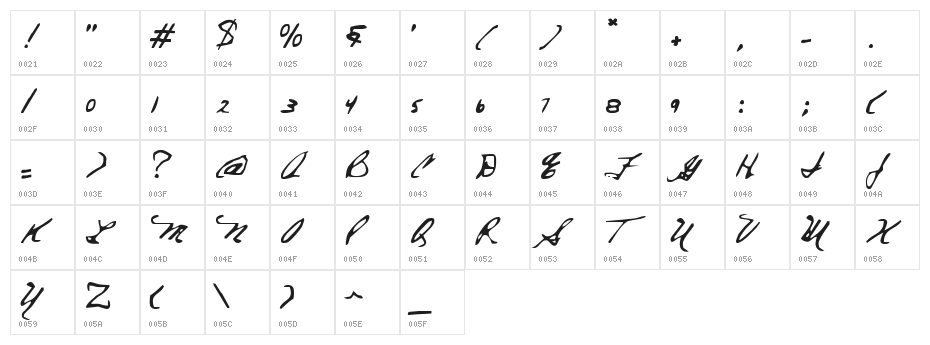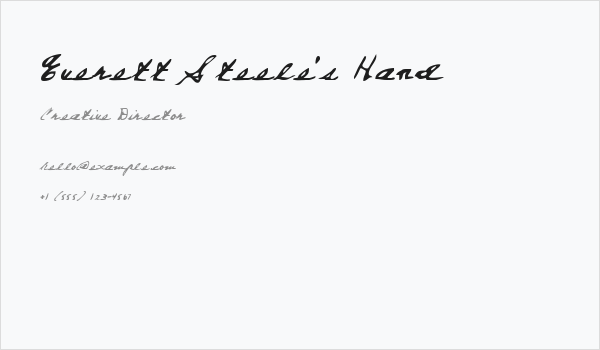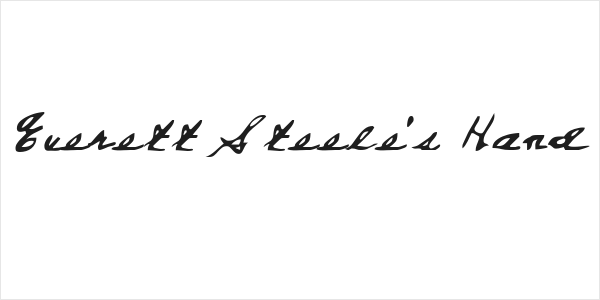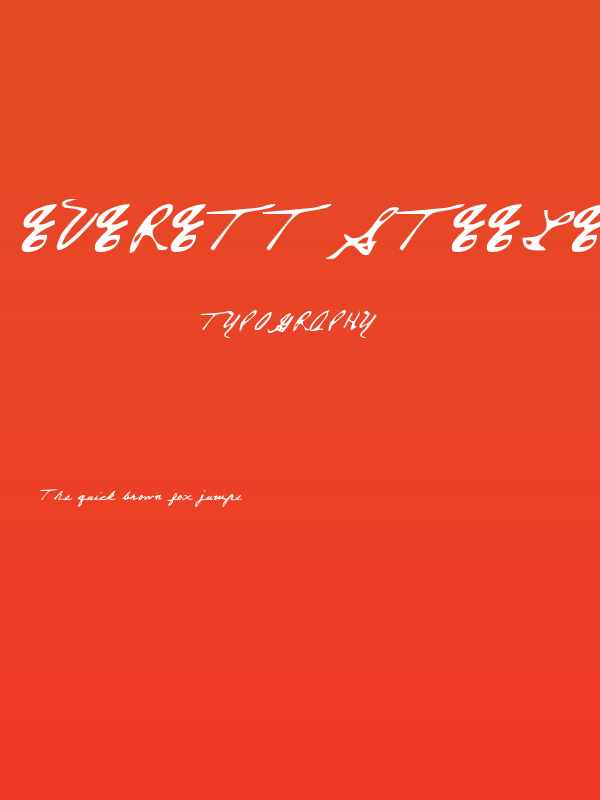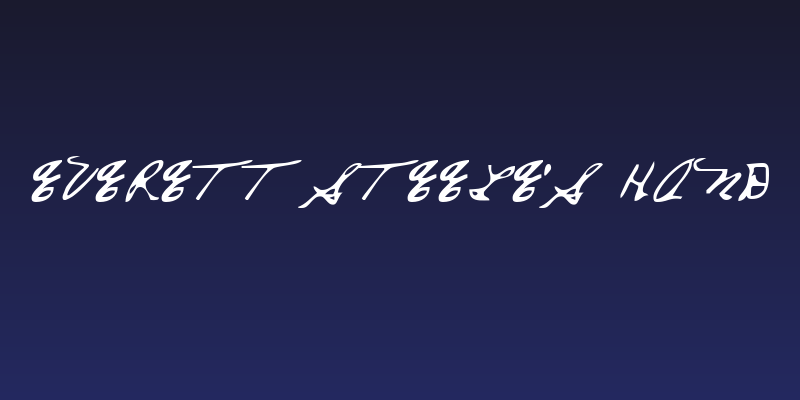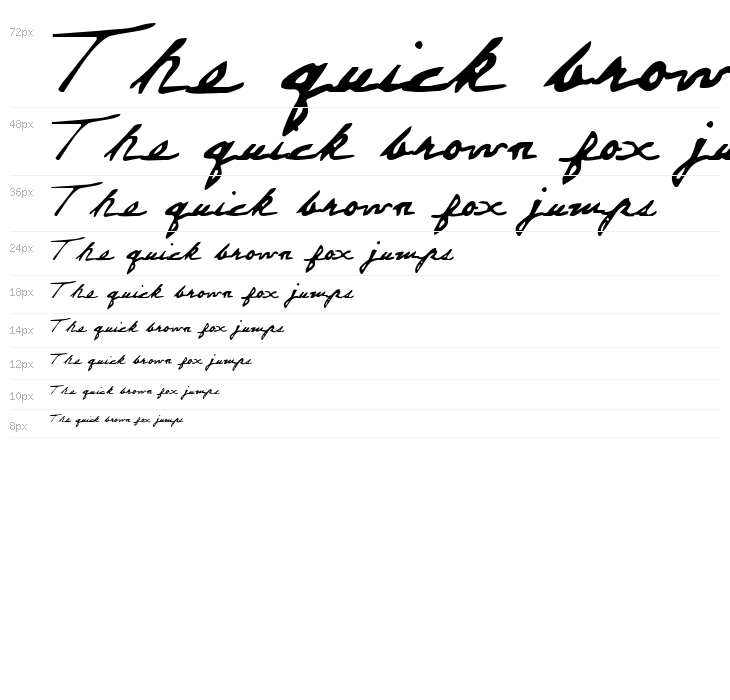
Everett Steele's Hand Font
Everett Steele's Hand Description
This font features a dynamic and fluid handwritten style, characterized by its expressive and flowing letterforms. The strokes are bold and confident, with a slight slant that adds to its casual yet sophisticated appearance. The uppercase letters are distinct and varied, while the lowercase letters maintain a consistent rhythm, enhancing readability. Numbers and special characters are integrated seamlessly, maintaining the overall aesthetic. The font's organic and personal touch makes it suitable for projects that require a human element.